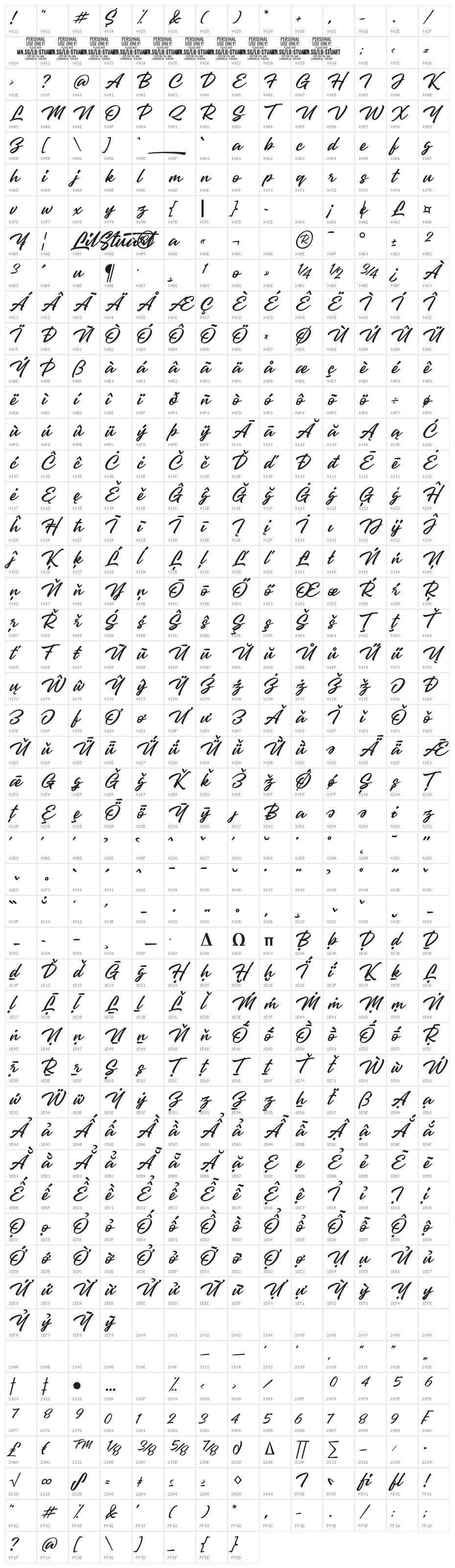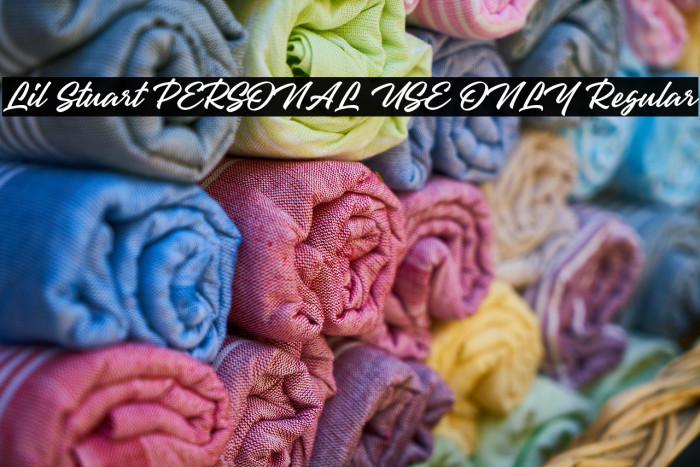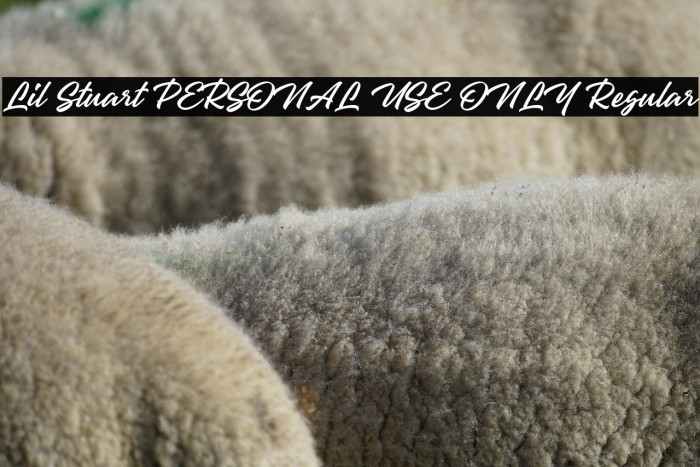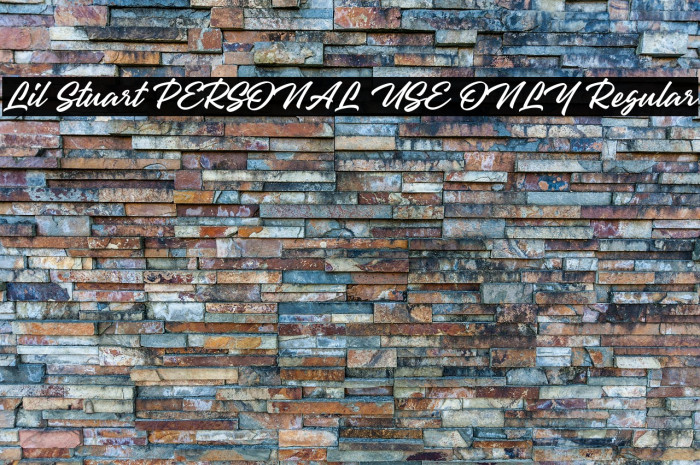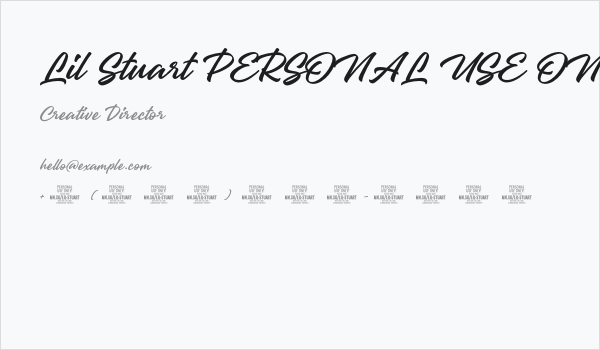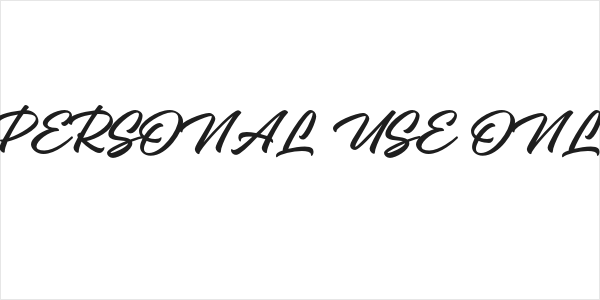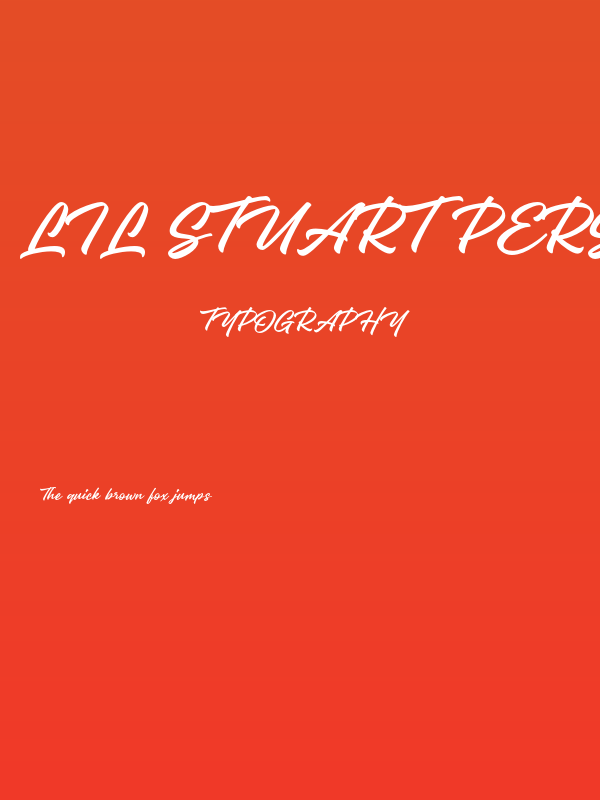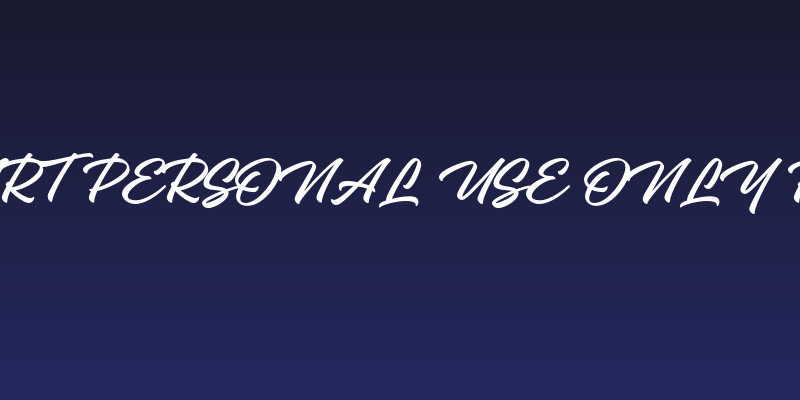
Lil Stuart PERSONAL USE ONLY Regular Font
Lil Stuart PERSONAL USE ONLY Regular Description
This font features a bold and flowing script style, reminiscent of elegant handwriting. The uppercase letters are slightly slanted, with smooth curves and a consistent stroke width that adds a sense of fluidity and grace. The lowercase letters maintain the same fluidity, with some characters connecting seamlessly to the next, enhancing the handwritten feel. The numbers and special characters are crafted with the same attention to detail, ensuring a cohesive look across all elements. This font exudes a sense of sophistication and style, making it suitable for projects that require a personal touch.
| Overall Style | Elegant, Handwritten |
| Proposed Projects | Ideal for wedding invitations, branding, logo design, and personal stationery. |